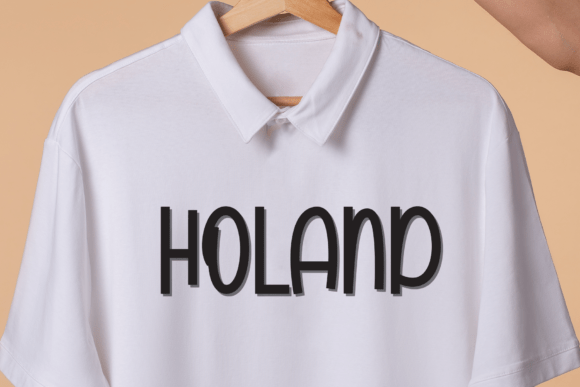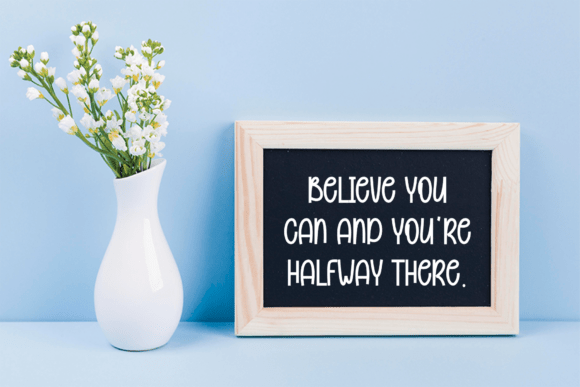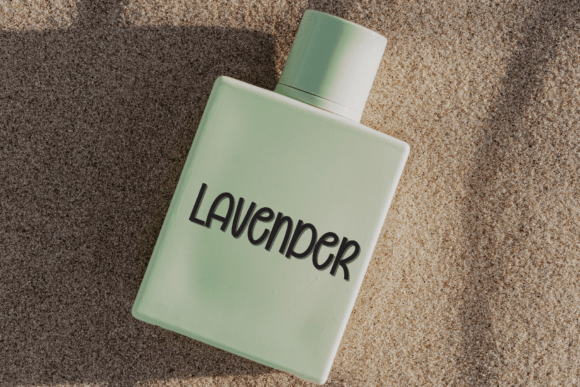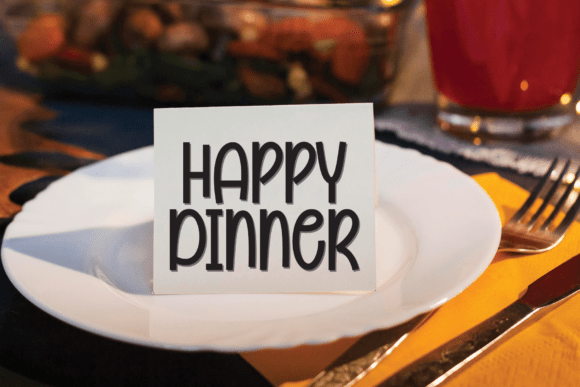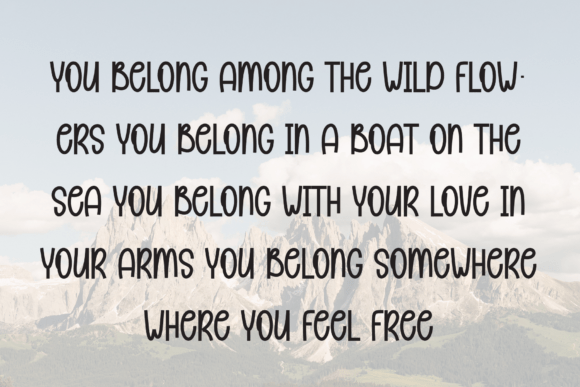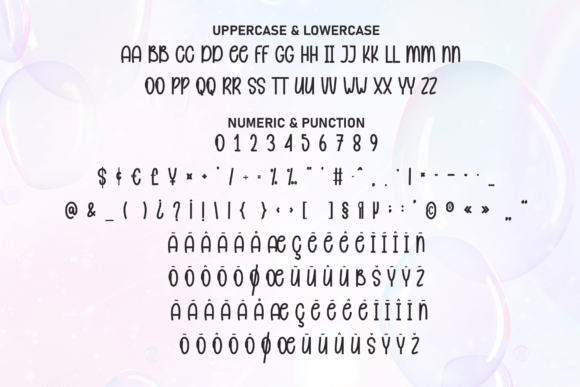
The Bubble Font: A Breath of Fresh Air for Your Designs
I’ll never forget the time I was working on a project for a trendy new coffee shop. The client wanted a font that was modern, yet laid-back, and I was determined to find it. After hours of scrolling through font websites, I stumbled upon the Bubble font. Its clean lines and friendly letterforms immediately caught my eye, and I knew I had found the perfect fit. In this article, I’ll share my experience with the Bubble font, its features, and how to make the most of it in your designs.
- ✨ Clarity and readability: The Bubble font strikes a perfect balance between style and readability. Its clean lines and simple shapes make it easy to read, even at smaller sizes.
- ✅ Versatility: This font is perfect for a wide range of design projects, from headlines and posters to packaging and branding.
- 💡 Playful energy: The Bubble font has a friendly, approachable vibe that adds a touch of personality to any design.
While the Bubble font is an excellent choice for many designs, there are a few things to keep in mind:
- 🤔 Limited suitability for body text: While the font is highly readable, its clean and simple design may not be the best choice for longer blocks of text.
- ⚠️ Careful use of stylistic alternates: Some of the font’s stylistic alternates can be a bit quirky, so be sure to use them judiciously to avoid overwhelming the design.
The Story Behind the Bubble Font
The Bubble font was designed by a team of typographers who wanted to create a font that was both modern and approachable. Inspired by the simplicity of digital interfaces and the playfulness of hand-drawn lettering, the Bubble font was born. Its creators aimed to craft a font that would be perfect for designs that require both style and readability.
Q: What is the Bubble font best suited for?
A: The Bubble font is perfect for headlines, posters, packaging, and branding that aims to feel modern yet laid-back.
Q: Is the Bubble font suitable for body text?
A: While the font is highly readable, its clean and simple design may not be the best choice for longer blocks of text.
Q: What are some common design applications for the Bubble font?
A: The Bubble font is commonly used in graphic design, branding, packaging, and advertising.